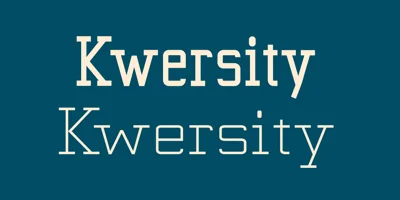
Kwersity Font
Kwersity Font is perfect for academic institution branding, university marketing materials, educational publication designs, research center logos, scholarly conference posters, student organization graphics, campus event announcements, academic journal layouts, graduation ceremony materials, and intellectual property presentations. Its scholarly character makes it ideal for projects requiring academic credibility and educational sophistication.
What makes Kwersity Font exciting is its innovative blend of traditional academic typography with contemporary digital design sensibilities that perfectly captures the evolution of modern education. The font features refined letterforms that balance scholarly authority with approachable readability, creating an atmosphere of intellectual curiosity and academic excellence. Its distinctive character bridges classical learning traditions with cutting-edge educational innovation, making knowledge accessible and engaging.
The Kwersity Font family includes Regular, Bold, Light, Medium, Italic, Condensed, and Academic variations. Each style preserves the font's educational essence while offering different weights and treatments for creating effective academic hierarchies and scholarly communications. The comprehensive character set includes mathematical symbols, academic notations, research glyphs, and educational ornaments essential for comprehensive university and scholarly typography projects.
Educational institutions and academic professionals consistently choose Kwersity Font for projects demanding credible scholarly typography solutions. The font's academic character establishes intellectual authority while ensuring clear communication across diverse educational audiences. Its versatility makes it suitable for both formal academic publications and modern campus marketing materials that need to appeal to contemporary students.
Whether you're developing university brand identities, creating academic research presentations, or designing educational marketing campaigns, Kwersity Font provides the perfect balance of scholarly gravitas and modern accessibility. The font's carefully researched letterforms ensure authentic academic character while maintaining excellent performance across various educational formats and institutional applications.
The intellectual heritage of Kwersity Font makes it exceptional for establishing credible connections within academic and research communities. Its scholarly precision and educational appeal work seamlessly across traditional academic publications and innovative digital learning platforms. The font maintains its intellectual character across various educational technologies and institutional communications.
Advance knowledge with Kwersity Font and discover how academic typography can enhance your educational projects' credibility and scholarly impact. This remarkable typeface combines educational tradition with contemporary functionality, making it indispensable for institutions and educators seeking to communicate knowledge with authority and accessibility.